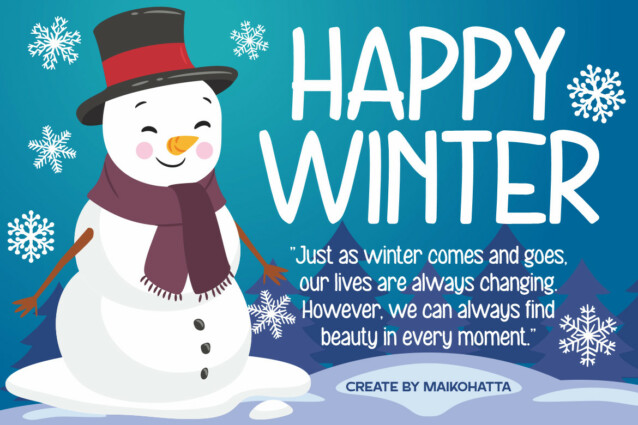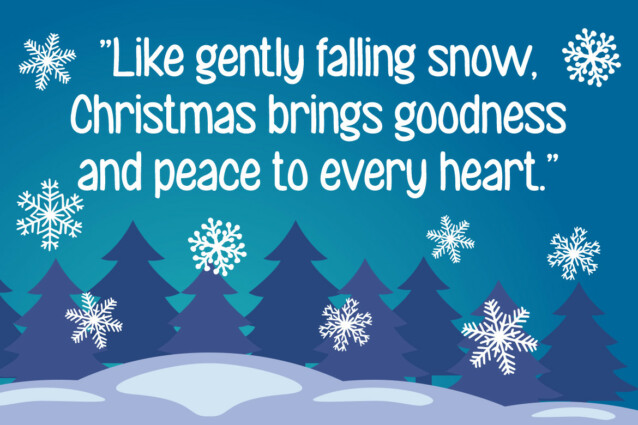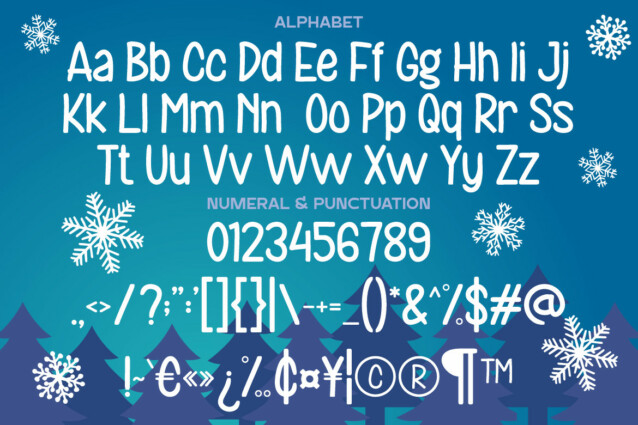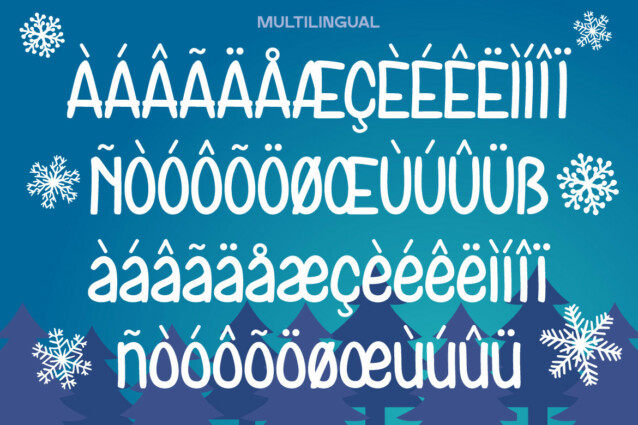
Snowman House Display Font is specifically designed to create a Christmas atmosphere and mood. It is often used in graphic design, greeting cards, posters, and various other visual elements related to the celebration of Christmas.
Snowman House Display Font